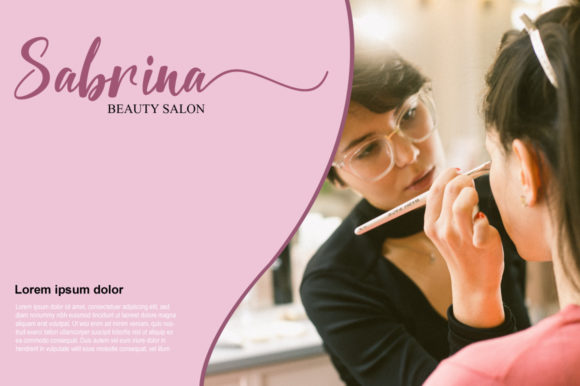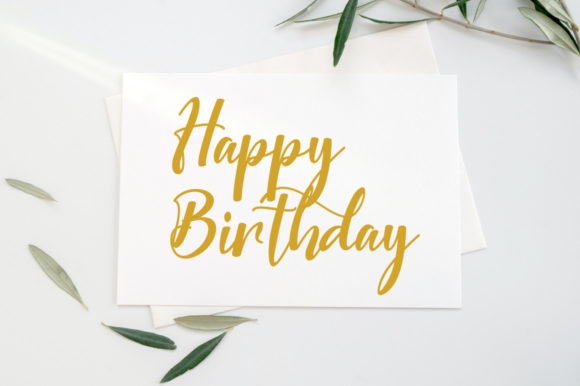
The Magic of Georgina Script Font: Elevate Your Designs with Elegance
I’ll never forget the moment I stumbled upon the perfect font for a client’s wedding invitation project. I had been searching for what felt like an eternity, trying out font after font, but nothing seemed quite right. That was until I discovered Georgina Script Font. Its elegant, handwritten accents and beautiful serif details instantly captivated me, and I knew I had found the one. In this article, I’ll share my love for Georgina Script Font, its features, and how to make the most of it in your designs.
An Honest Review of Georgina Script Font
- ✨ Elegant, handwritten accents that add a touch of sophistication to any design
- 💫 Beautiful serif details that give the font a classic, timeless feel
- 🎨 Highly versatile and suitable for a wide range of design projects, from wedding invitations to branding and packaging
While Georgina Script Font is an amazing addition to any designer’s toolkit, there are a few things to keep in mind:
- ⚠️ As with any script font, it may not be the best choice for very large blocks of text or body copy.
- 🤔 Some users may find the font’s handwritten accents and swashes a bit tricky to work with at first, but with a little practice, you’ll get the hang of it!
The Designer Inspiration Behind Georgina Script Font
While the true story behind Georgina Script Font remains a mystery, it’s easy to imagine that the designer was inspired by the classic script fonts of the past, with a dash of modern elegance and sophistication. Perhaps the designer was a lover of handwritten letters and wanted to create a font that would bring a touch of warmth and personality to digital designs.
Q: What is PUA encoding, and how does it benefit Georgina Script Font?
A: PUA (Private Use Area) encoding allows designers to access a wide range of glyphs and swashes, making it easier to customize and personalize their designs.
Q: Is Georgina Script Font suitable for body copy or large blocks of text?
A: While Georgina Script Font is a beautiful addition to any design, it may not be the best choice for body copy or large blocks of text. It’s best used for headings, titles, and short paragraphs.